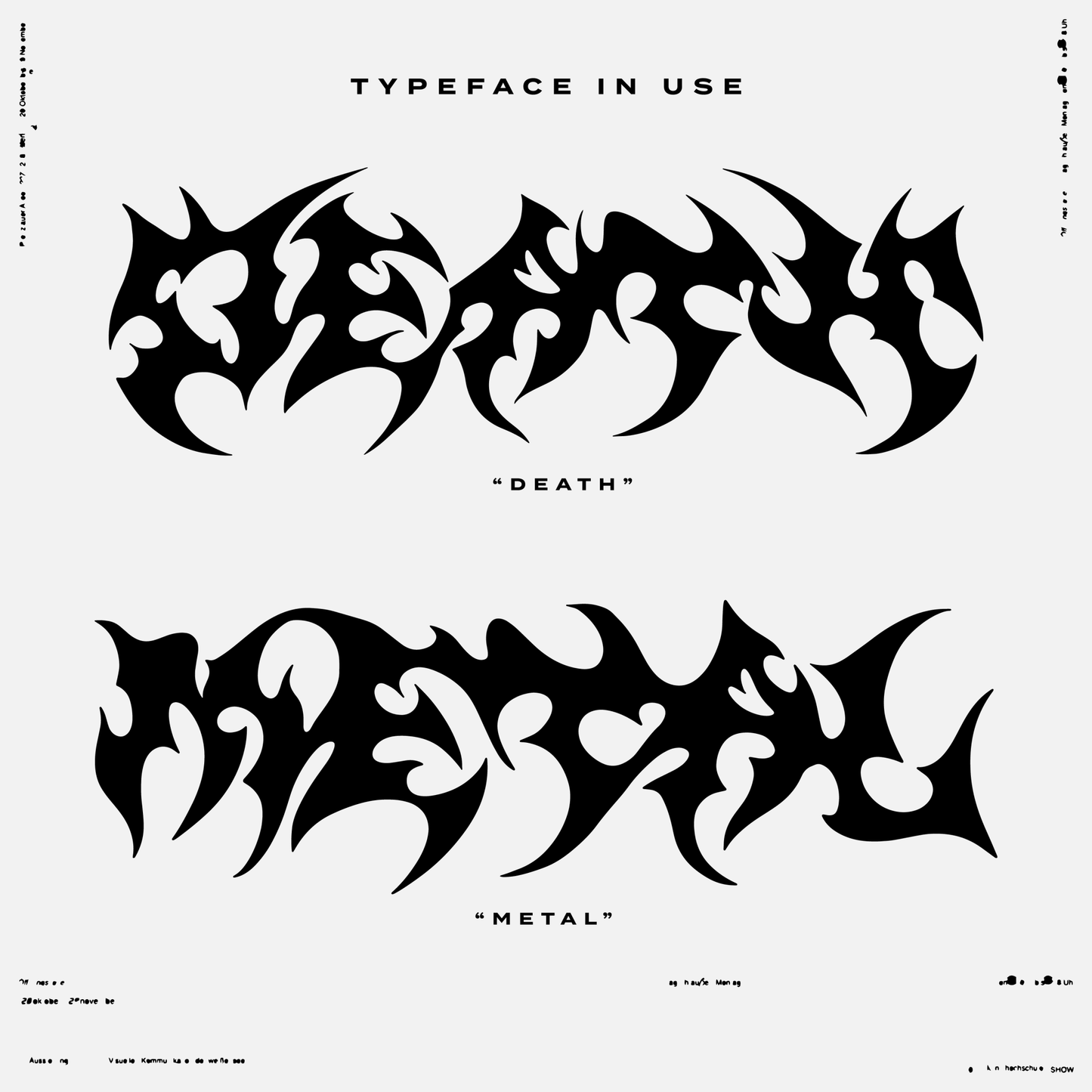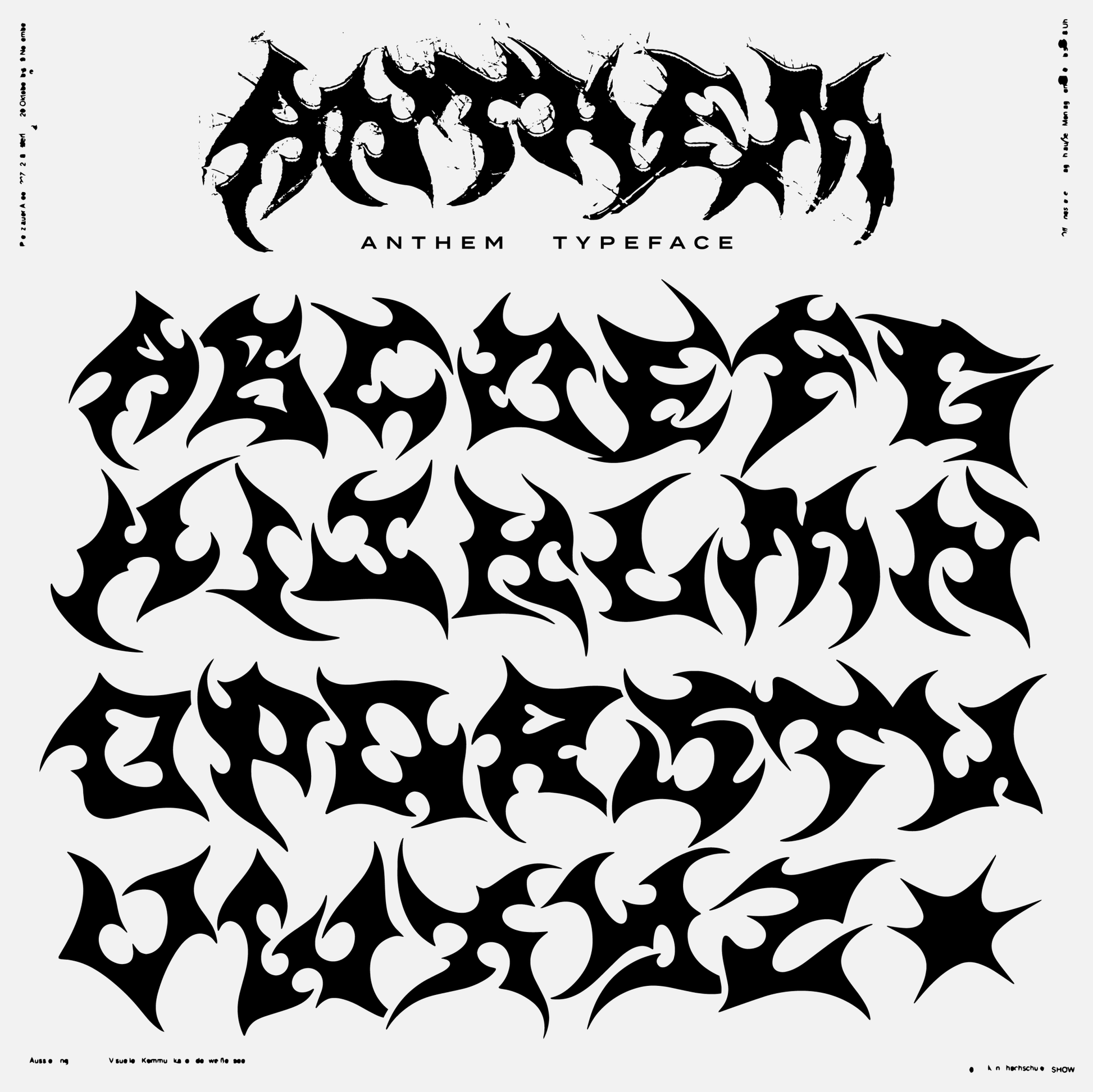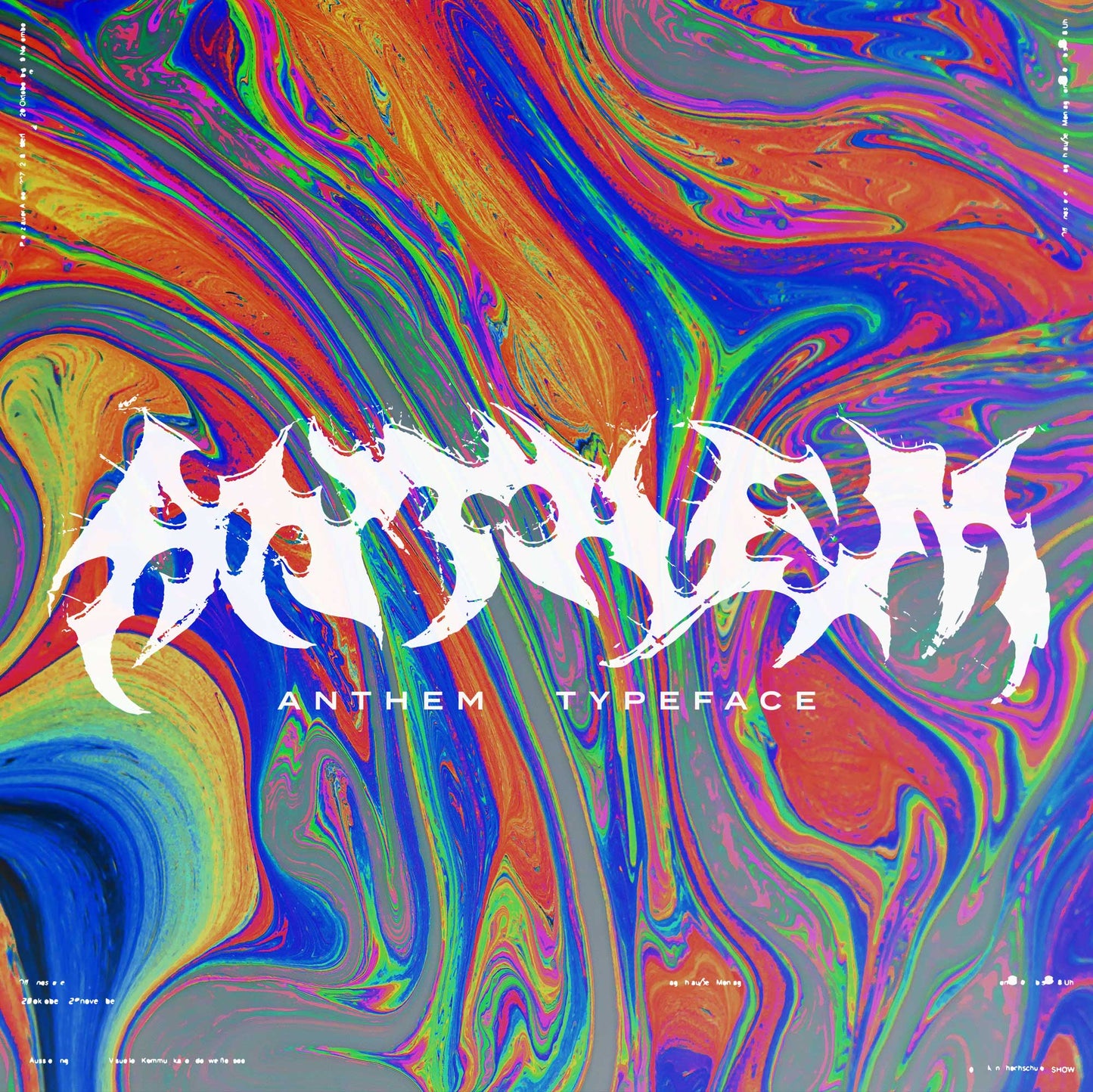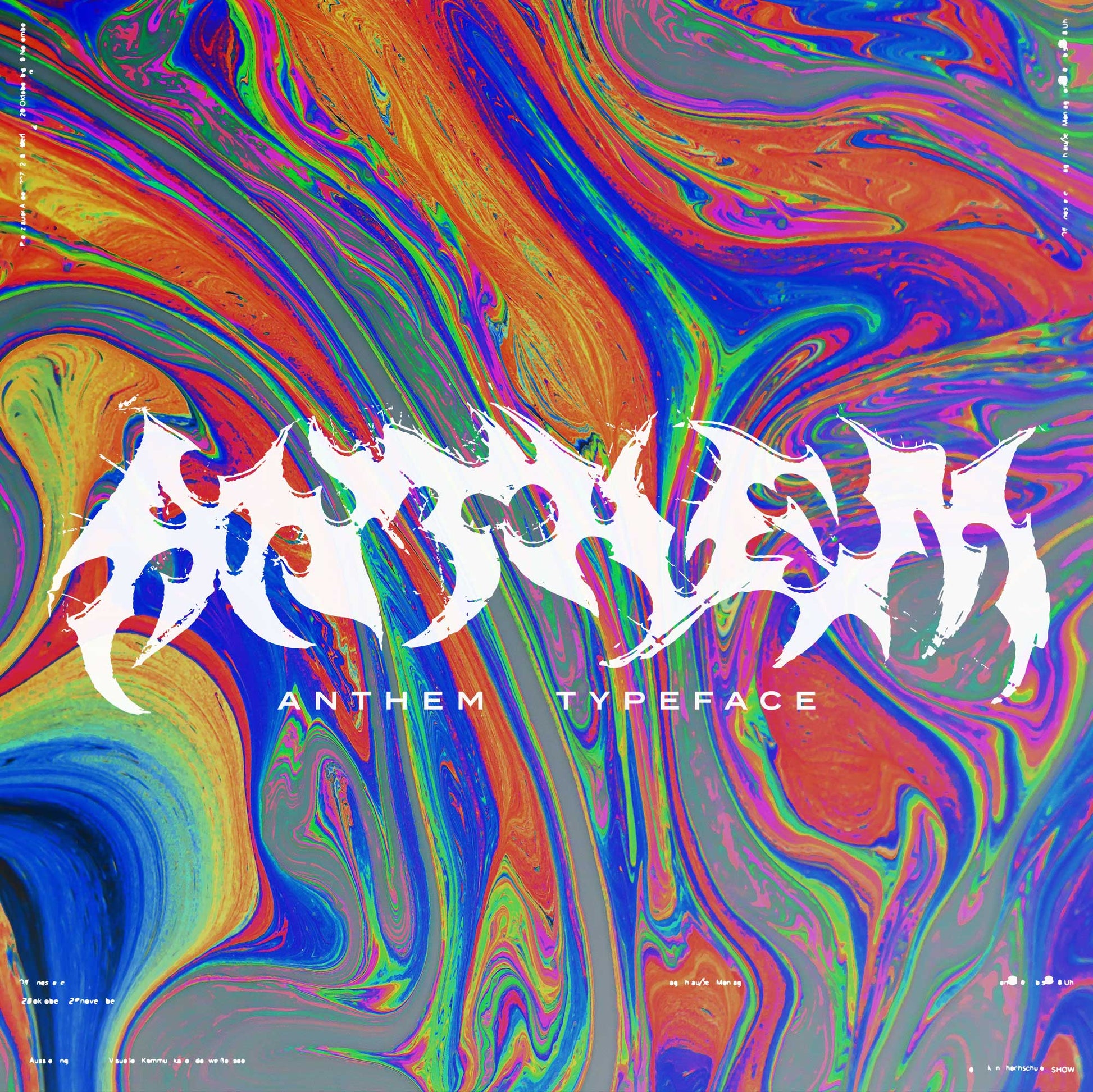
ANTHEM Hand-Drawn Fluid / Metal Typeface
ANTHEM has been carved, burned, dragged, and reassembled.
A hand-drawn fluid metal display typeface built for noise. Every letter twists, stretches, and cuts through space like it’s moving at full volume.
This is a statement font.
ANTHEM is alive.
Organic curves collide with blade-like cuts.
Negative space punches through heavy forms.
Each word feels like the logo on a band t-shirt before you've designed it.
Built For:
- Band identities
- Tour posters
- Album covers
- Streetwear graphics
- Tattoo-inspired branding
- Underground labels
- Aggressive digital campaigns
ANTHEM performs best large — let it dominate the frame.
- Hand-drawn fluid metal style
- High-impact display weight
ANTHEM doesn’t sit quietly in a layout.
It becomes the layout.